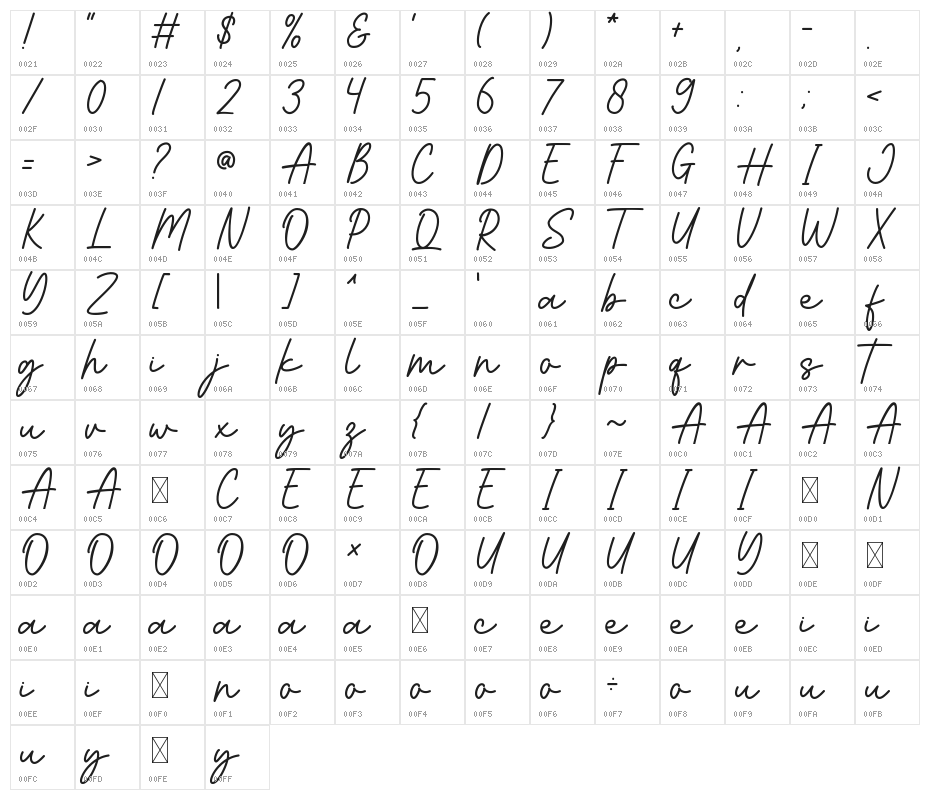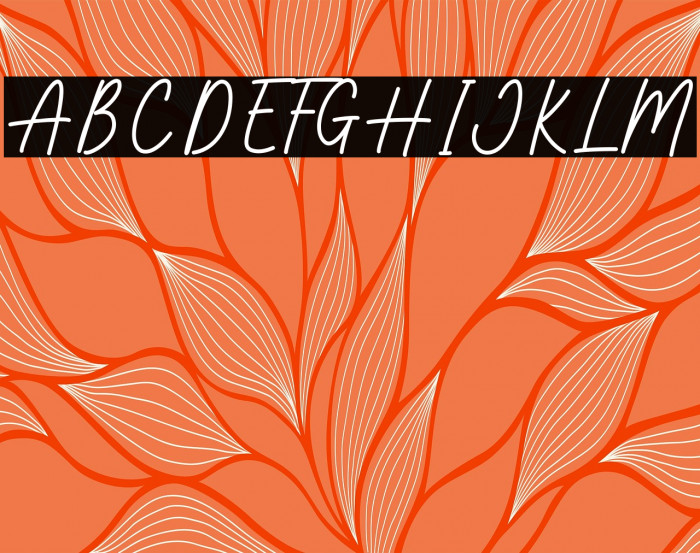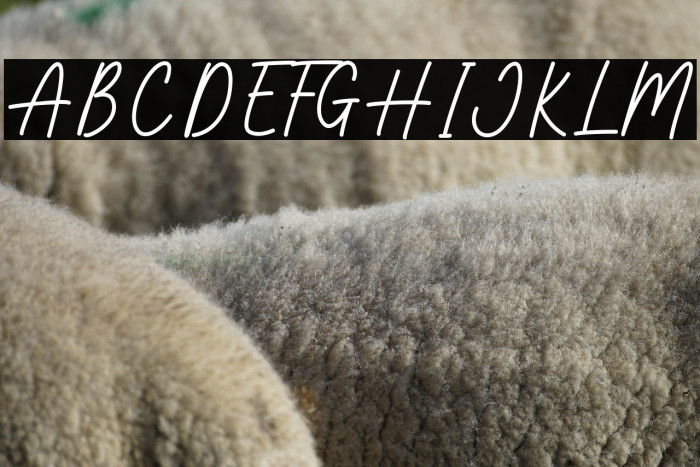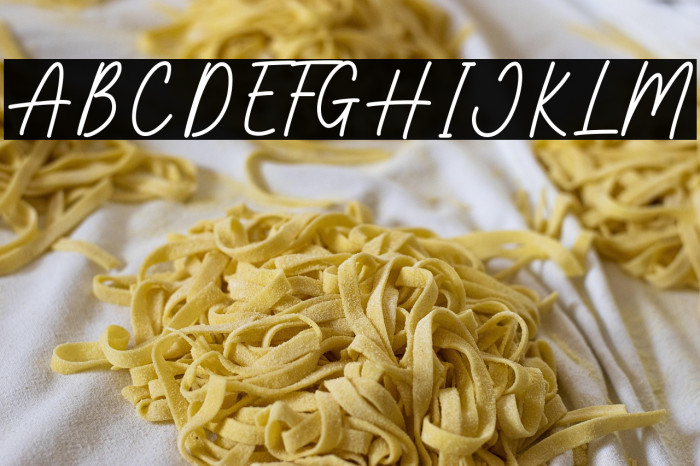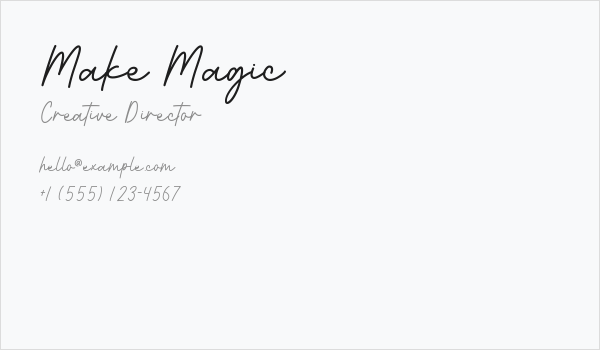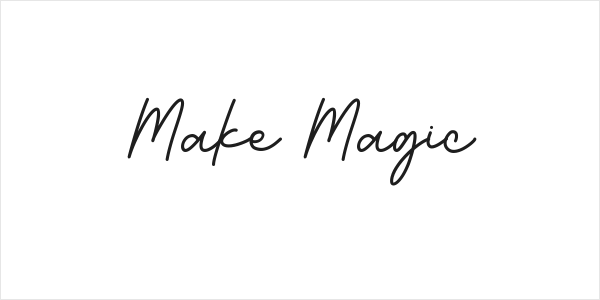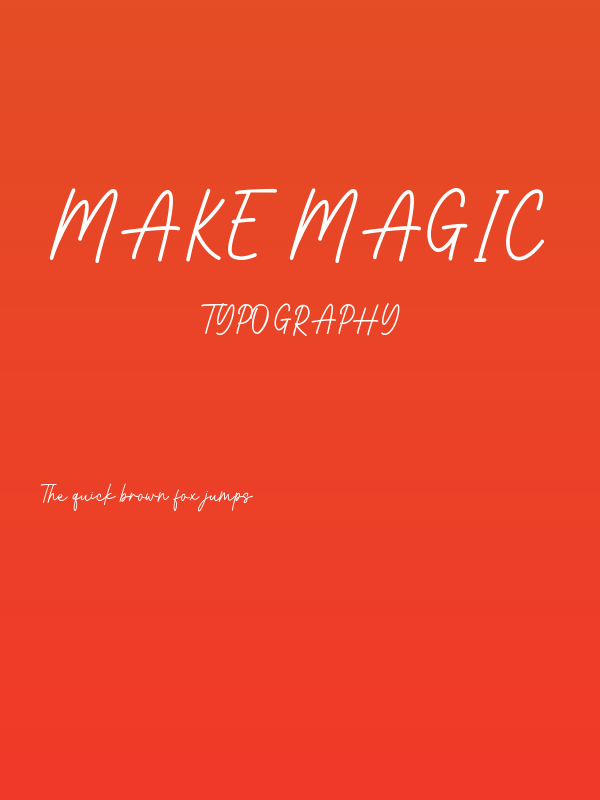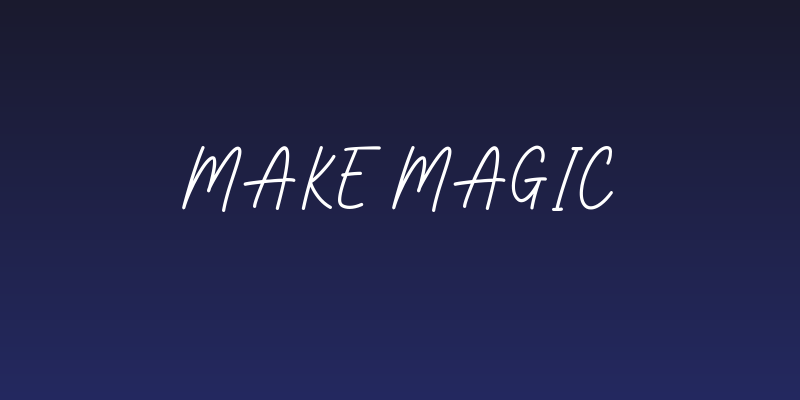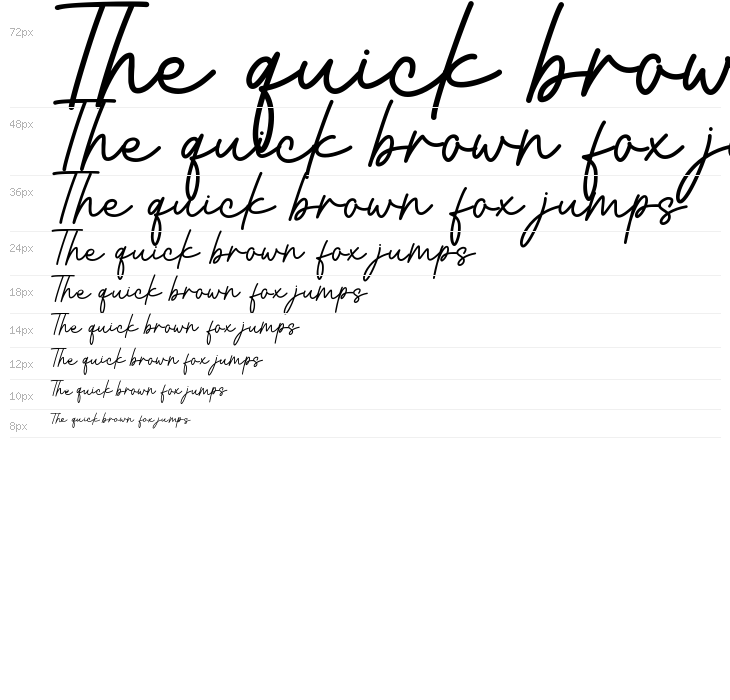
Make Magic Font
Make Magic Description
This font features a handwritten style with fluid, connected strokes that emulate natural handwriting. The uppercase letters are slightly more structured, while the lowercase letters exhibit a more relaxed, flowing form. The numerals are consistent with the overall style, maintaining the same handwritten aesthetic. Special characters are seamlessly integrated, preserving the font's cohesive appearance. The overall look is casual yet elegant, making it suitable for projects that require a personal touch.
| Overall Style | Casual, Elegant |
| Use Case | Logos, Invitations, Social Media Graphics |
| Proposed Projects | Ideal for greeting cards, personal branding, invitations, and social media graphics. |